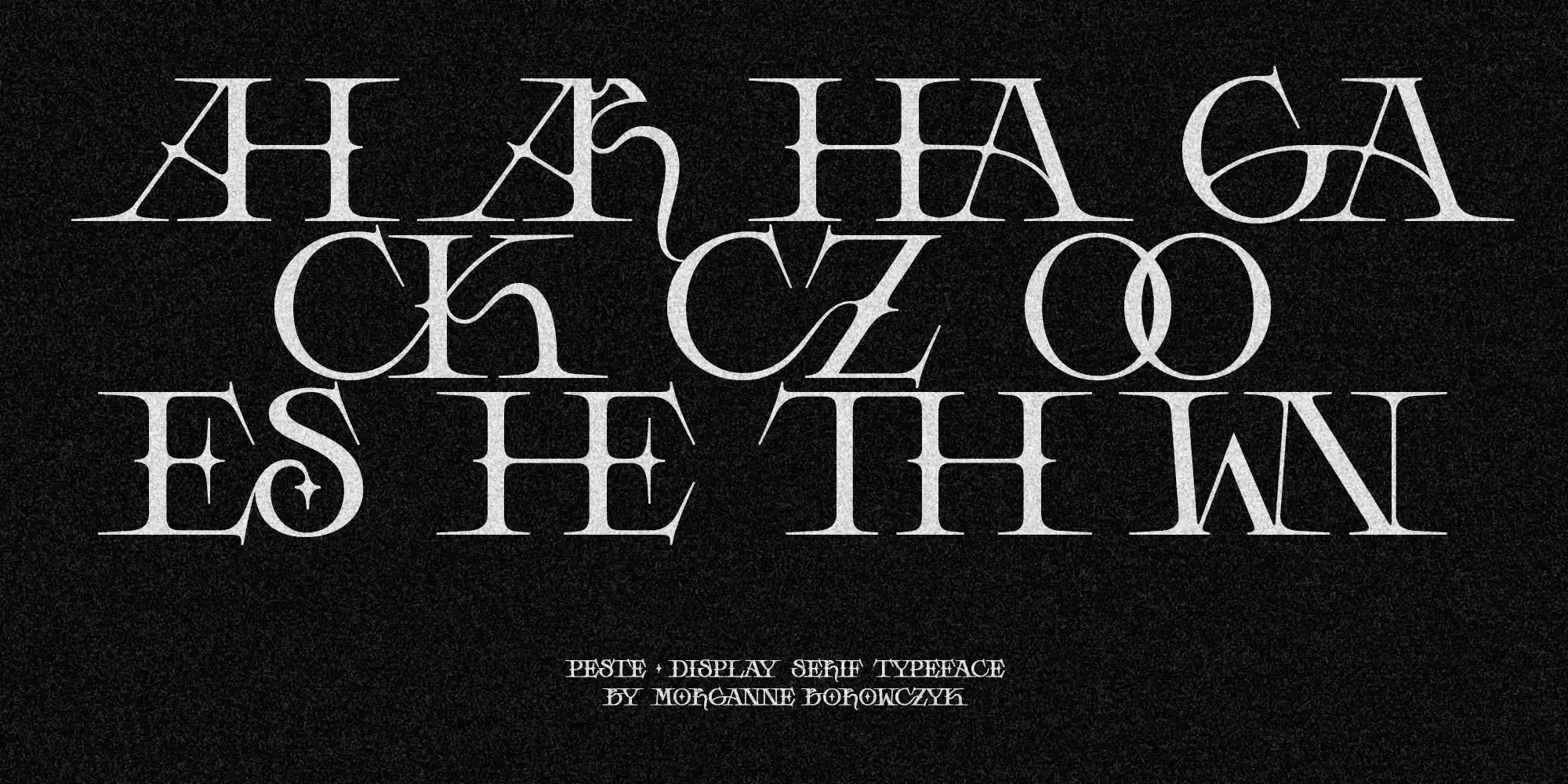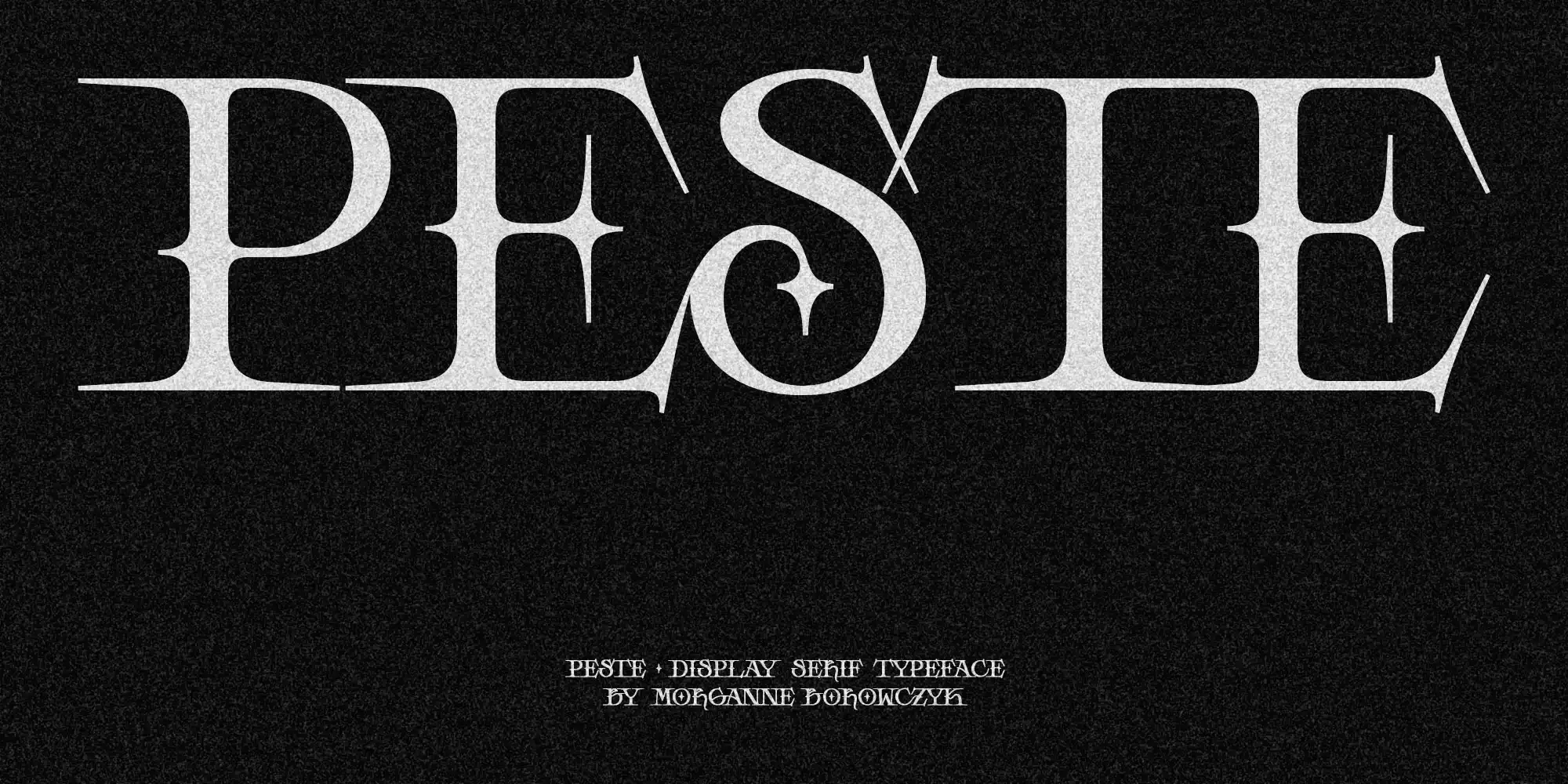
Peste — Display Serif Font is a stunning digital download that brings a unique flair to your creative projects! ✨ This font features sharp edges and elegant curves, inspired by Medieval art and heroic-fantasy themes. Perfect for making a bold statement, it shines on posters, album art, t-shirts, book covers, and more! 🌟
Peste is not just any font; it’s a captivating display serif typeface that stands out with its distinctive character. Whether you’re designing for print or web, this font will add a touch of sophistication and artistry to your work. The serif font characteristics of Peste make it an excellent choice for those looking to create visually striking designs.
- Unique Design: Peste combines sharp edges with elegant curves, making it one of the best display serif fonts available.
- Versatile Usage: Ideal for large titles and impactful designs, perfect for posters, t-shirts, and book covers.
- 26 uppercase letters
- Punctuation marks
- Ligatures
This font is a fantastic choice for graphic designers, typographers, and anyone looking to make a statement with their typography. Whether you’re crafting a unique logo, designing a book cover, or creating eye-catching promotional materials, Peste is here to inspire your creativity! 🎨